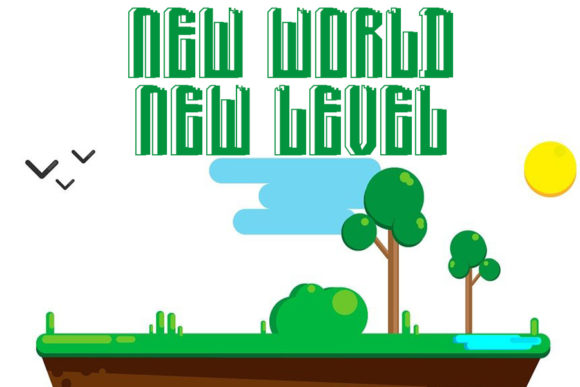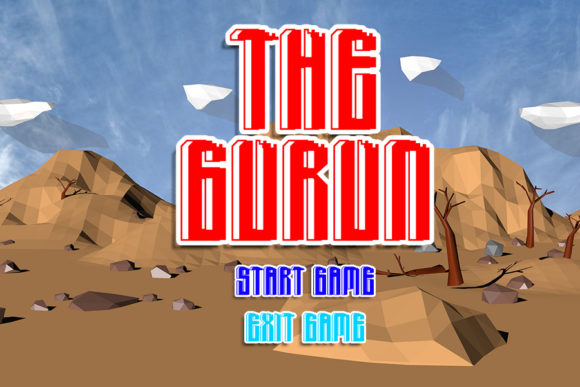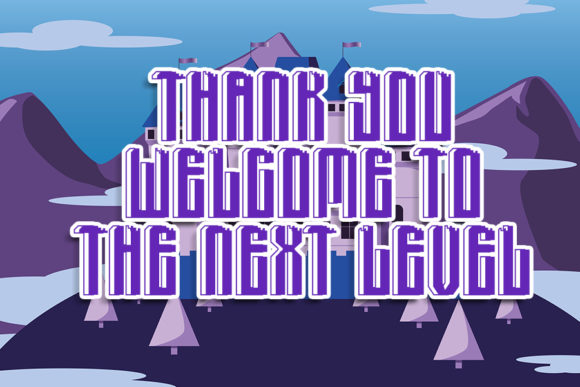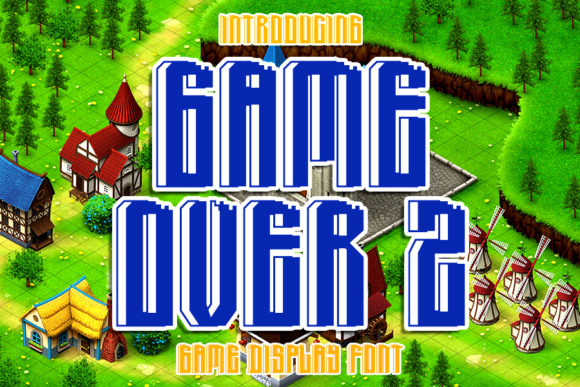
Unleash the Power of Game Over 2 Font: Elevate Your Game Designs
Are you tired of using the same old fonts for your game designs? Look no further! Game Over 2 is a strong and incredibly unique display font that can add a new level of excitement to your games. With its chunky lettered design, Game Over 2 can make your game designs come alive and leave a lasting impression on your players.
What Makes Game Over 2 Font So Special?
Game Over 2 is not just another font; it’s a game-changer. Its unique design features chunky letters that are perfect for creating eye-catching titles, headings, and captions for your games. The font’s strong and bold appearance makes it perfect for games that require a high level of energy and excitement, such as action, adventure, and sports games.
Key Features of Game Over 2 Font
- Unique Design: Game Over 2 features a chunky lettered design that sets it apart from other fonts.
- Strong and Bold: The font’s strong and bold appearance makes it perfect for creating eye-catching titles and headings.
- Highly Versatile: Game Over 2 can be used for a wide range of game genres, from action and adventure to sports and puzzle games.
- Easily Readable: Despite its chunky design, Game Over 2 is easily readable, even at smaller font sizes.
How to Use Game Over 2 Font in Your Game Designs
Using Game Over 2 in your game designs is easy. Here are a few tips to get you started:
- Use it for Titles and Headings: Game Over 2 is perfect for creating eye-catching titles and headings for your games.
- Experiment with Different Colors: Try using different colors to add an extra level of excitement to your game designs.
- Combine it with Other Fonts: Game Over 2 can be paired with other fonts to create a unique and visually appealing design.
Benefits of Using Game Over 2 Font
Using Game Over 2 in your game designs can have a number of benefits, including:
- Increased Engagement: Game Over 2 can help increase player engagement by creating a visually appealing and exciting design.
- Improved Brand Recognition: Using a unique and recognizable font like Game Over 2 can help improve brand recognition and set your games apart from the competition.
- Easier Design Process: Game Over 2 is easy to use and can save you time and effort in the design process.
Who Can Benefit from Using Game Over 2 Font?
Game Over 2 is perfect for a wide range of designers and crafters, including:
- Game Developers: Game Over 2 is perfect for game developers looking to create visually appealing and exciting game designs.
- Graphic Designers: Graphic designers can use Game Over 2 to create eye-catching titles, headings, and captions for their designs.
- UI/UX Designers: UI/UX designers can use Game Over 2 to create intuitive and visually appealing user interfaces.
Game Over 2 is a powerful and unique display font that can elevate your game designs to the next level. With its chunky lettered design and strong and bold appearance, Game Over 2 is perfect for creating eye-catching titles, headings, and captions for your games. Whether you’re a game developer, graphic designer, or UI/UX designer, Game Over 2 is a must-have font in your design arsenal.